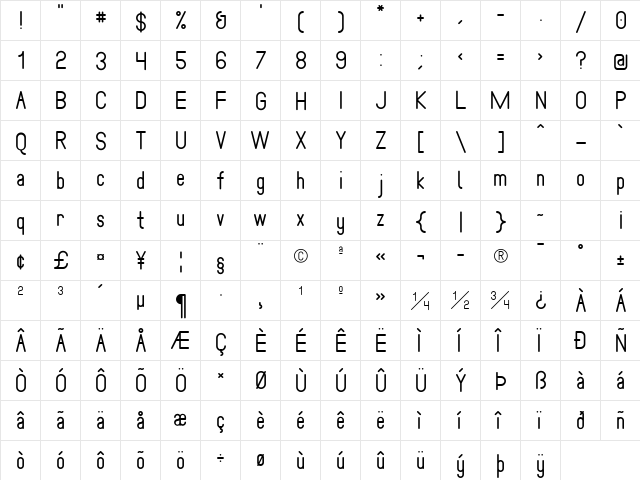
Pianaforma Regular
Design Context for Pianaforma Typeface
Pianaforma takes a measured approach to typography — its balanced proportions and neutral character make it a reliable workhorse for both digital and print work.